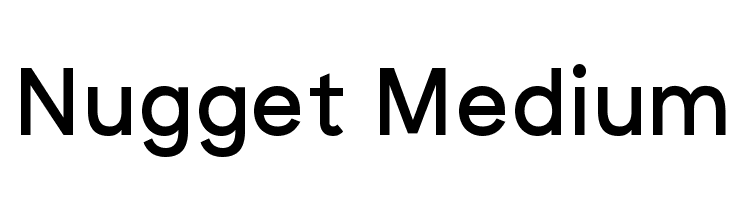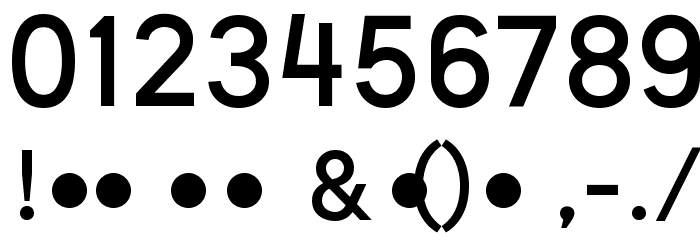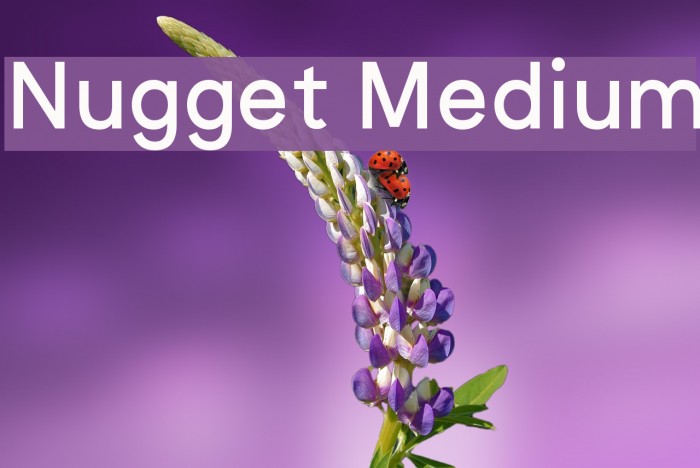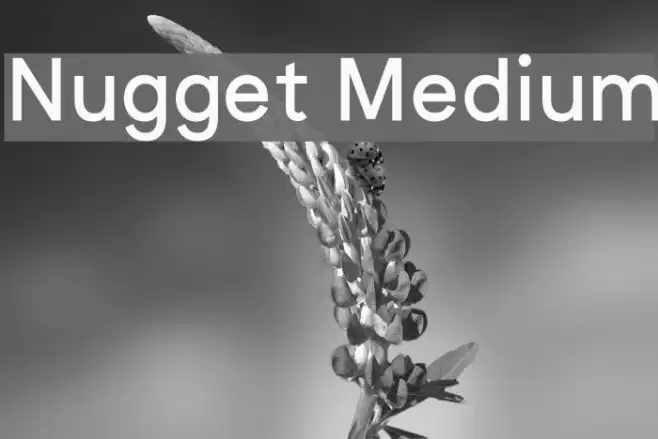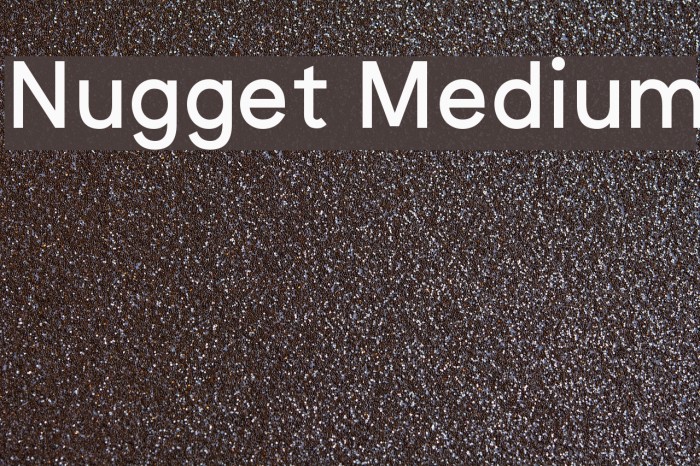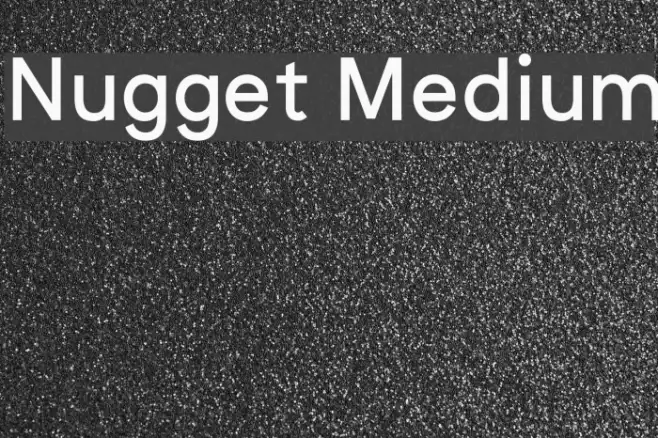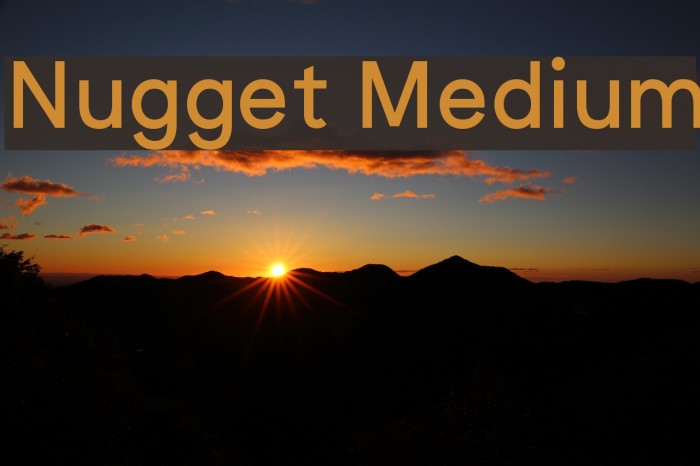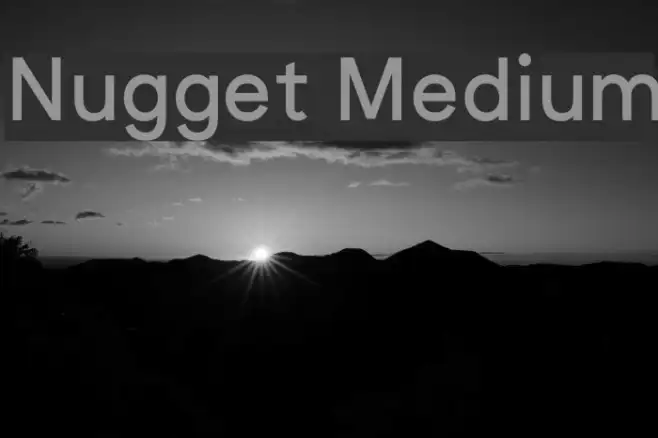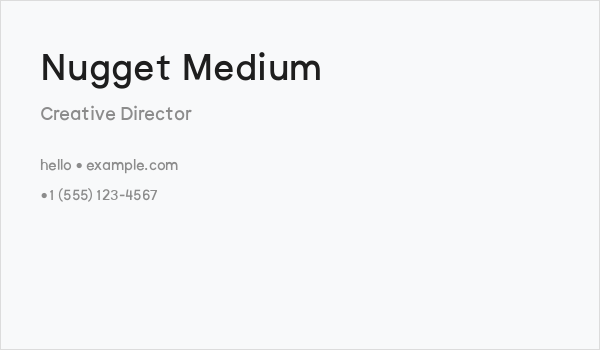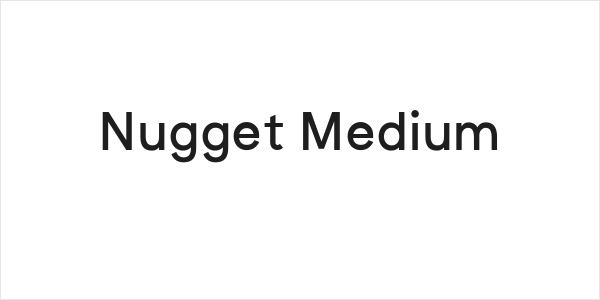
Nugget Medium Font
Nugget Medium Description
This font features a clean and modern sans-serif design, characterized by its geometric shapes and uniform stroke widths. The letters are well-balanced, with a consistent height and width that contribute to its readability. The uppercase and lowercase letters maintain a harmonious relationship, making it versatile for various design needs. The numerals are clear and distinct, ensuring easy legibility. Special characters are thoughtfully designed, maintaining the overall aesthetic of the font. Its simplicity and clarity make it suitable for both digital and print media.